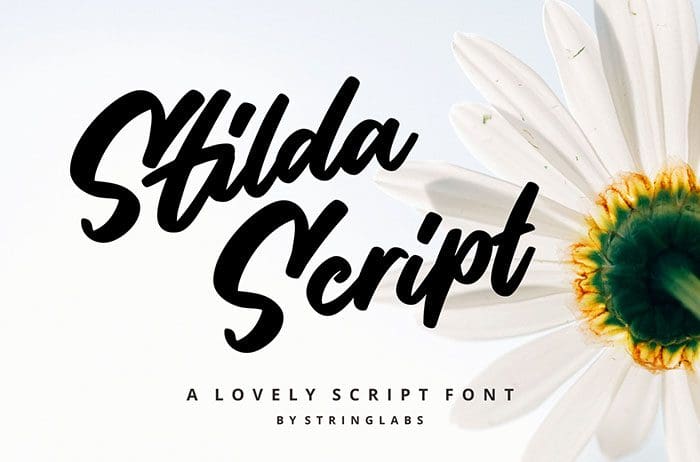
Stilda Lovely Script Font
Stilda Lovely Script Font, made with a unique and authentic style. Stilda has ligature features that enhance your font combinations. Stilda is perfect for those of you lovers of fonts with a casual and natural style. This font is available only for personal use. Created this font by StringLabs. You can also search more free Script Fonts. Thanks.